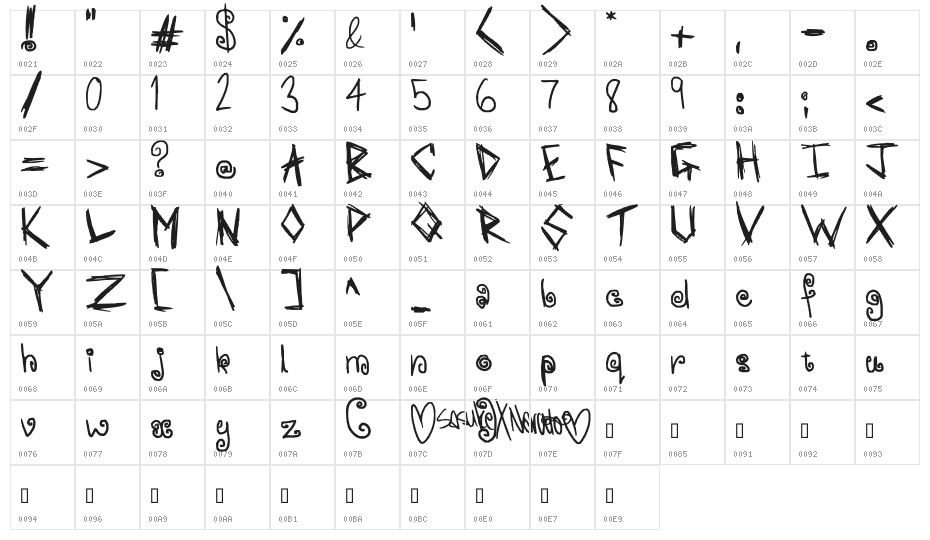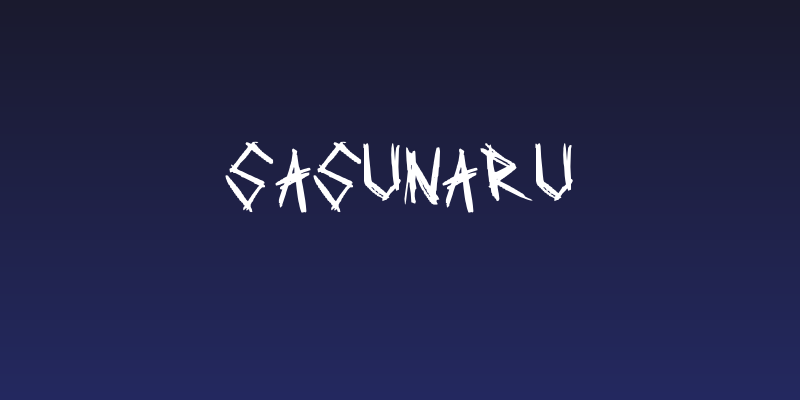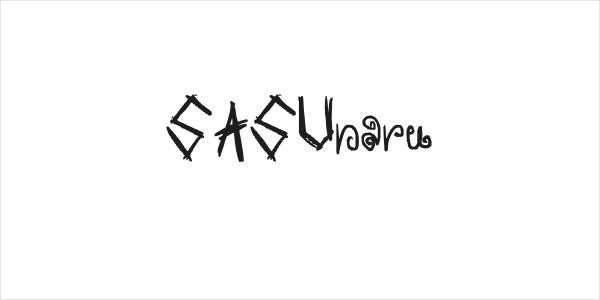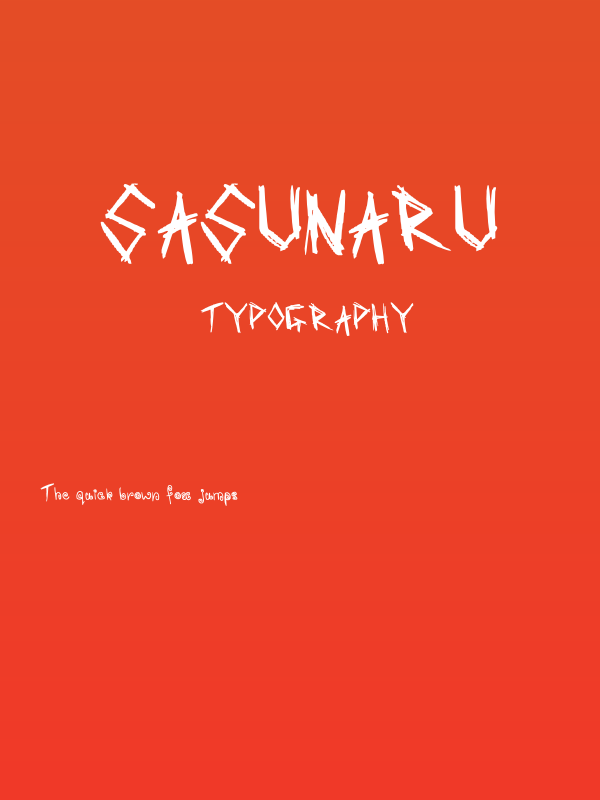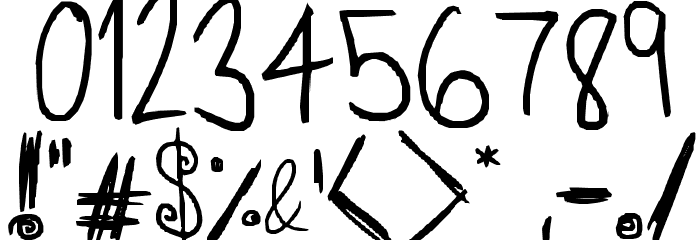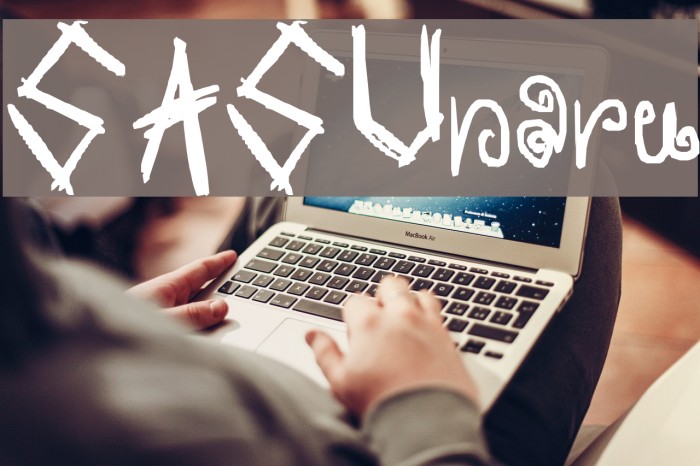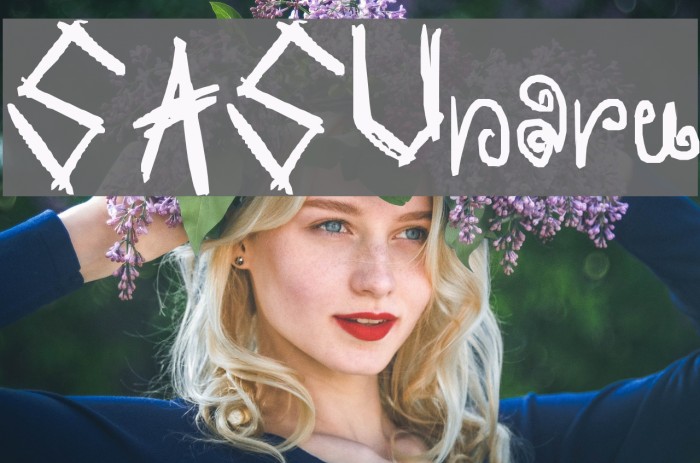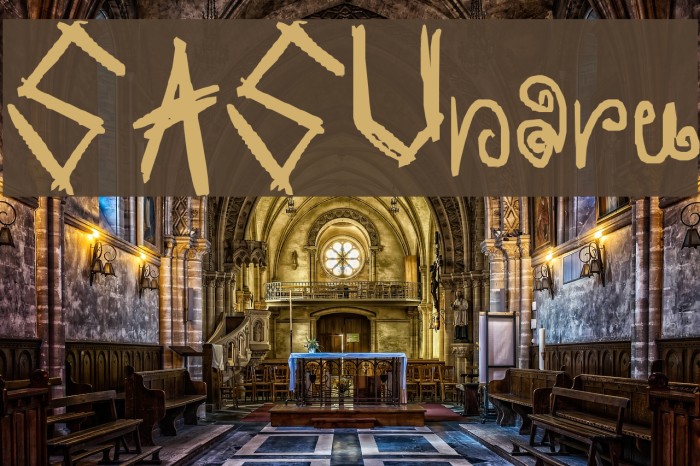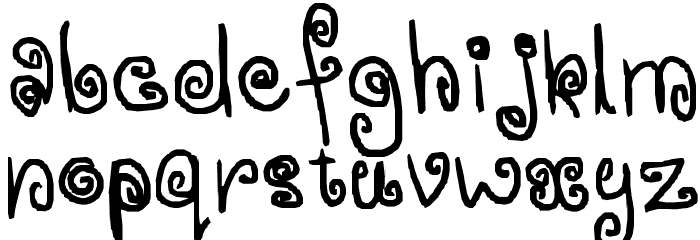
SASUnaru Font
SASUnaru Description
This font features a highly expressive and dynamic style, characterized by its jagged, hand-drawn appearance. The uppercase letters are bold and angular, with sharp edges and a slightly chaotic feel, reminiscent of graffiti or street art. The lowercase letters maintain the same energetic vibe, with swirling, exaggerated curves that add a playful touch. Numbers are equally bold and maintain the same hand-drawn aesthetic, ensuring consistency across all characters. Special characters are creatively designed, adding a unique flair to the overall font. This font is ideal for projects that require a bold, artistic statement.
SASUNARU UPPERCASE
SASUNARU LOWERCASE
SASUNARU OTHER CHARS
| Overall Style | Modern, Artistic |
| Use Case | Headlines, Posters, Artistic Branding |
| Proposed Projects | Perfect for street art designs, edgy posters, album covers, and creative branding projects. |